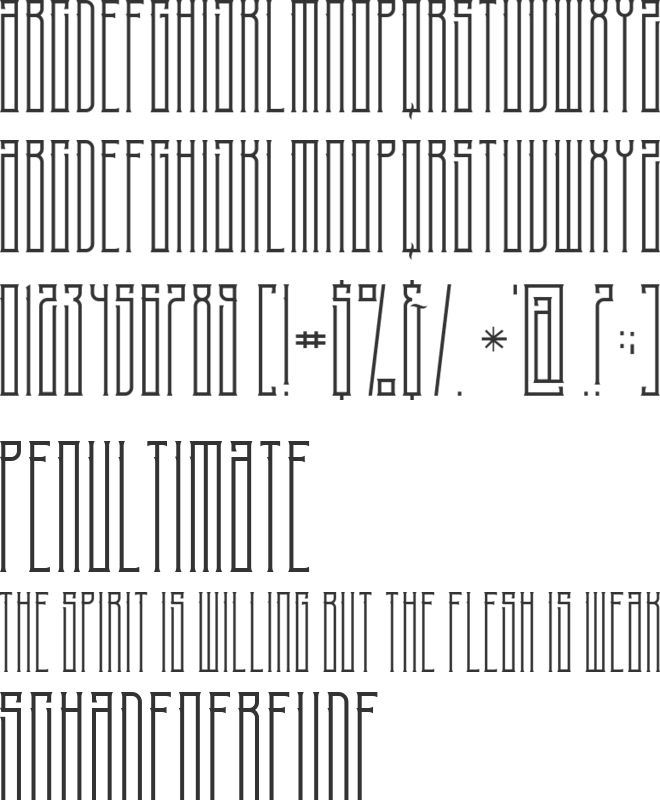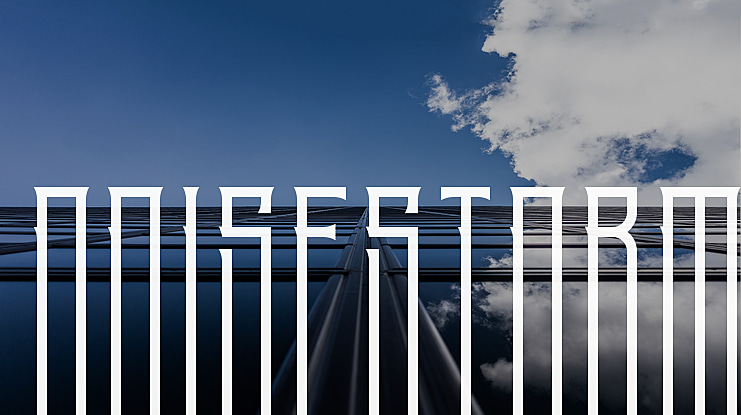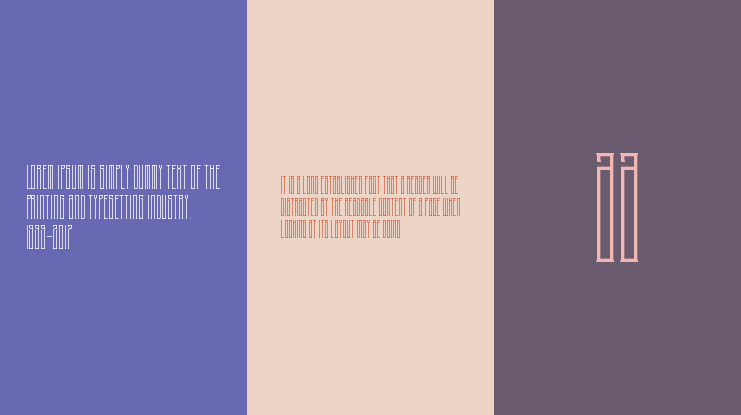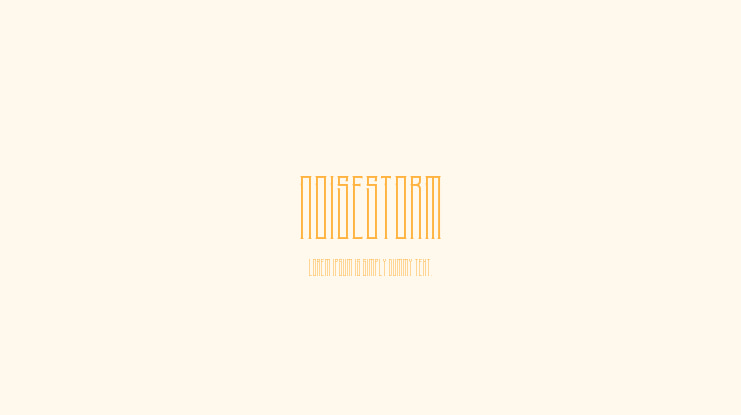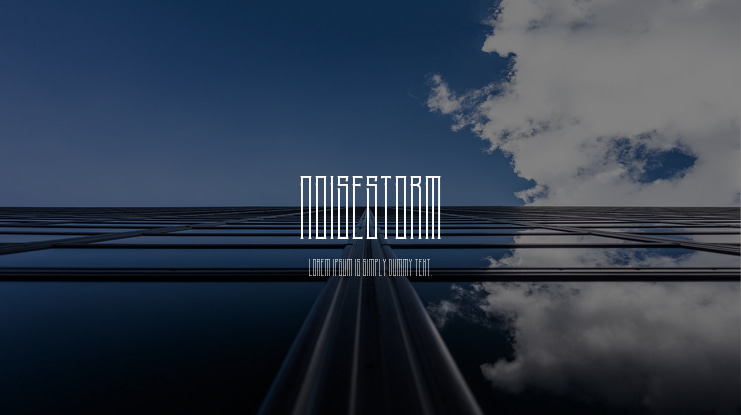
NoiseStorm Font
This NoiseStorm font is inspired by Classic Retro and Vintage nature. NoiseStorm font is perfect for badges, branding, labels, apparel, headlines, signage, logo, quote, apparel and other creative applications.